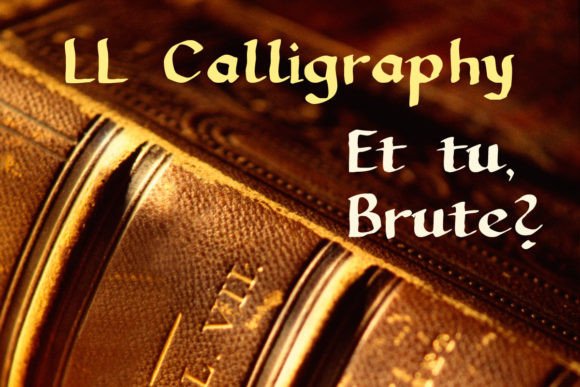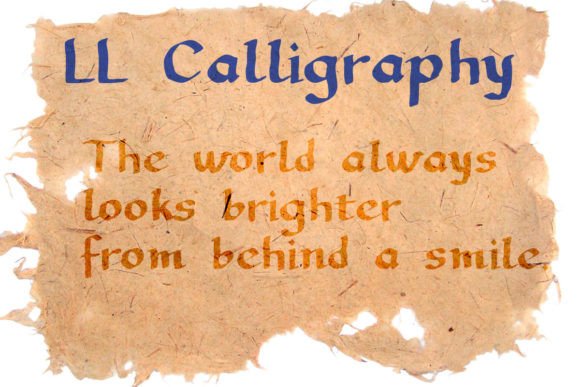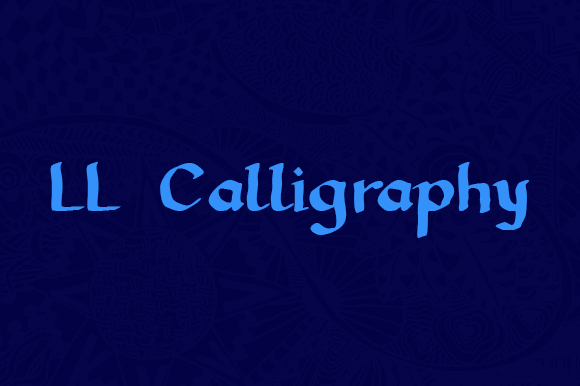
LL Calligraphy Font
LL Calligraphy is an extremely timeless calligraphy script font, with an ease of legibility and weight. Use this font for a wide range of projects!